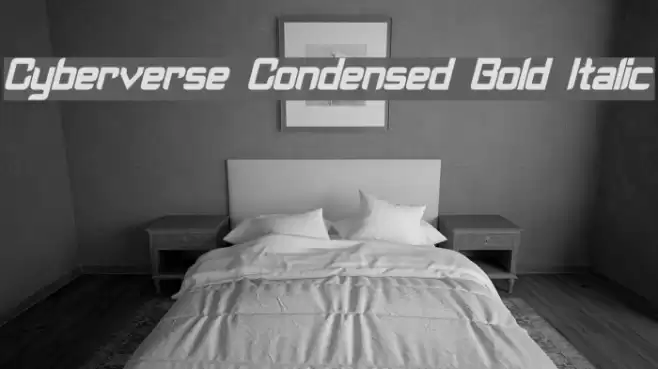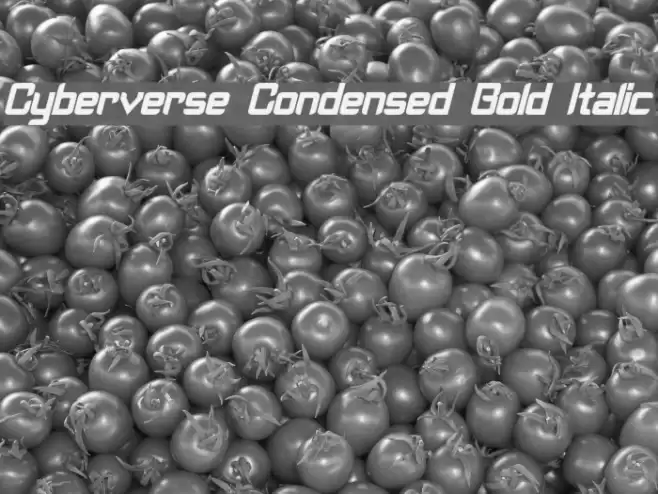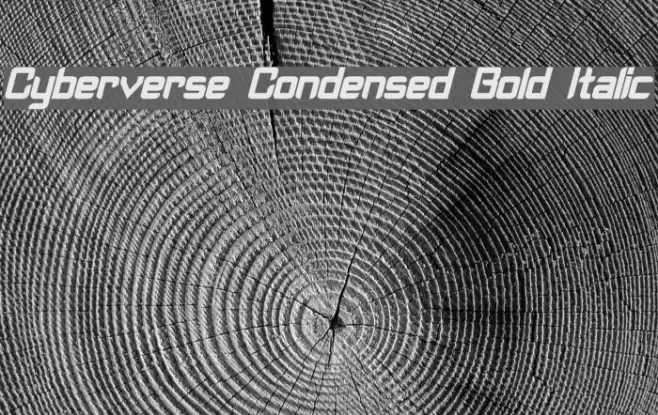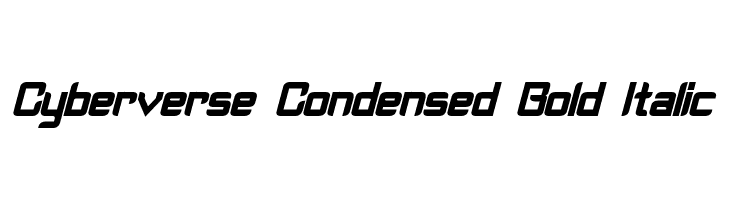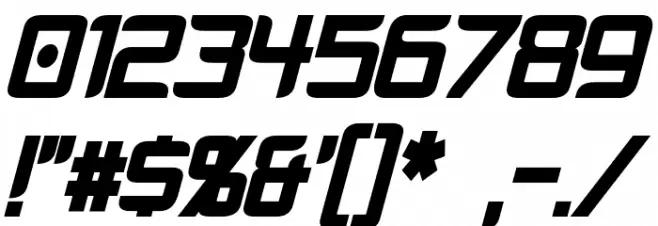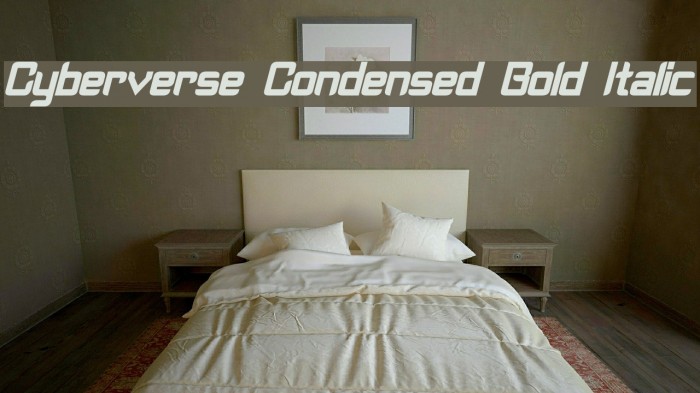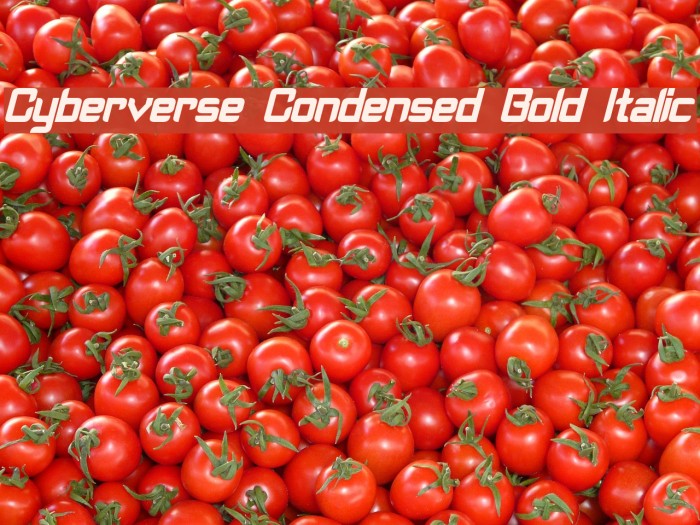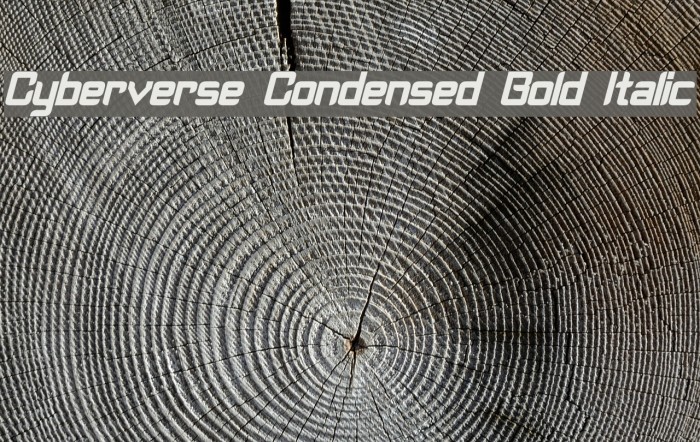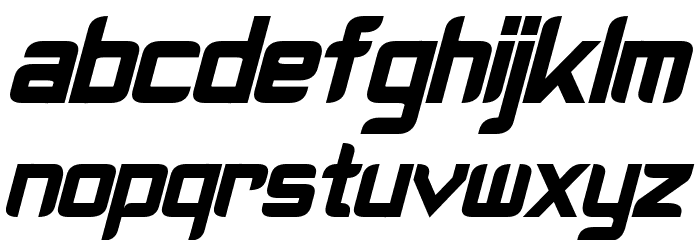
Cyberverse Condensed Bold Italic Font
Cyberverse Condensed Bold Italic Description
This font features a futuristic and dynamic design with a condensed and bold appearance. The italicized style adds a sense of motion and speed, making it ideal for modern and tech-oriented projects. The characters are sharply angled, with a geometric structure that enhances its sleek and streamlined look. The uppercase and lowercase letters maintain a consistent style, while the numerals and special characters complement the overall aesthetic. The font's bold weight and condensed width make it stand out, ensuring readability even at smaller sizes. Its unique style is perfect for creating a strong visual impact.
A futuristic, bold, and italicized font with a condensed design, ideal for tech and modern projects from Uncategorized fonts.
- Proposed Projects: Suitable for technology branding, sci-fi movie posters, video game titles, and futuristic website headers.